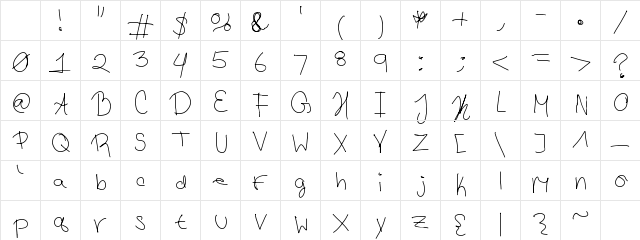
Complete Chicken Scratch Kayli Regular glyph index. Displaying only characters natively supported by Chicken Scratch Kayli Regular font.
Chicken Scratch Kayli is a composed and adaptable typeface that performs quietly and consistently across a wide range of design contexts.